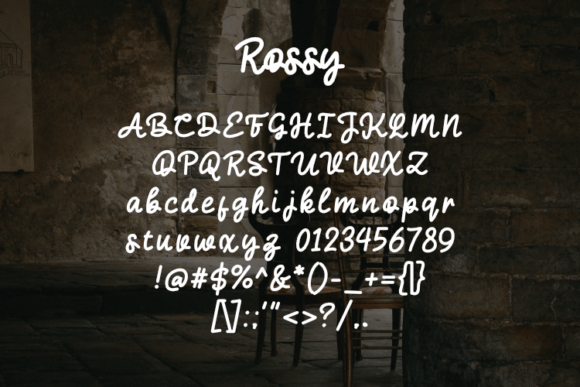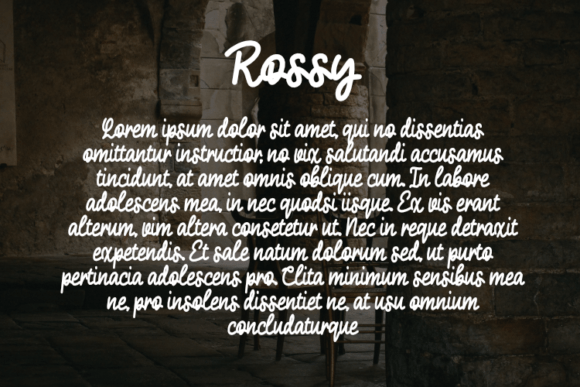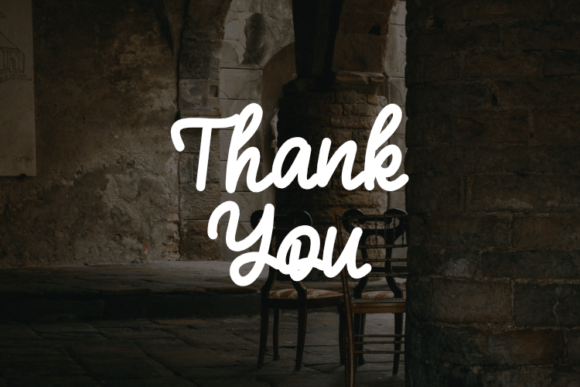
Introduction to Rossy Font
Have you ever been brainstorming for the perfect font to elevate your latest creative project, only to find yourself stuck in a sea of uninspiring options? You envision a design that’s bold, yet elegant; sophisticated, yet playful. That’s where Rossy Font comes in – a game-changing design resource that’s about to revolutionize the way you approach your next creative endeavor.
Key Features of Rossy Font
- High-quality design: The Rossy Font is a premium design resource that offers a unique and creative touch to any project.
- Multi-language support: This font supports a wide range of languages, making it a versatile design resource for global projects.
Honest Review: Rossy Font
I recently stumbled upon the Rossy Font, a design resource that caught my attention with its unique style and versatility. As a designer, I’m always on the lookout for high-quality fonts that can elevate my creative projects. The Rossy Font definitely delivers.
- ✨ High-quality design: The font is well-crafted, with a clear and smooth texture that makes it perfect for both digital and print applications.
- ✨ Versatile style: The Rossy Font can be used for a variety of creative projects, from headings to body text, and even as a decorative element.
However, I did encounter a few limitations with the Rossy Font:
- ⚠️ Limited character set: The font only includes a limited set of characters, which may not be suitable for projects that require a wide range of language support.
- ⚠️ Not ideal for small text: Due to its unique design, the Rossy Font may not be the best choice for small text sizes, as it can become difficult to read.
Overall, I’m impressed with the Rossy Font and would definitely recommend it to designers looking for a high-quality, versatile font for their creative projects. Just be aware of its limitations and use it accordingly.
Use Rossy Font in conjunction with a high-quality image or design element to create a visually appealing design. Experiment with different font sizes and styles to add emphasis to your text. Consider using a transparent background to give your design a more professional look.
Rossy Font is a versatile design resource that can be used in a variety of creative projects, including social media graphics, presentations, and marketing materials. Its high-quality design and transparent background make it an ideal choice for designers and non-designers alike.